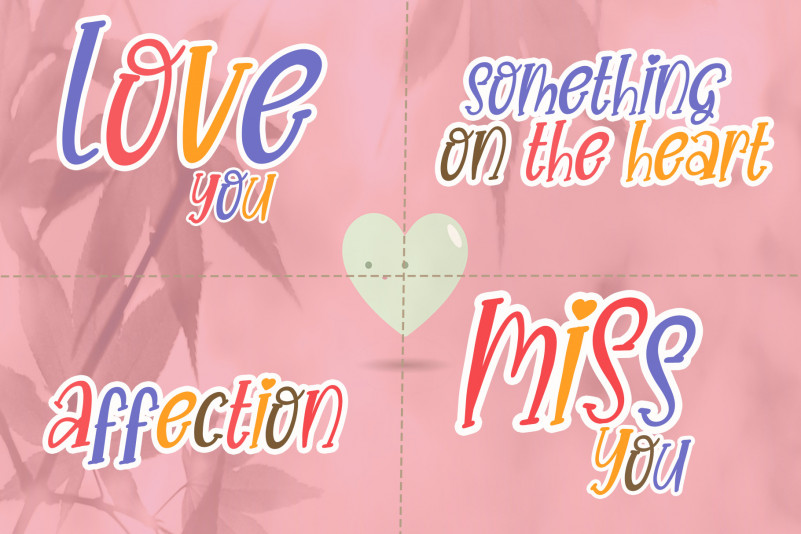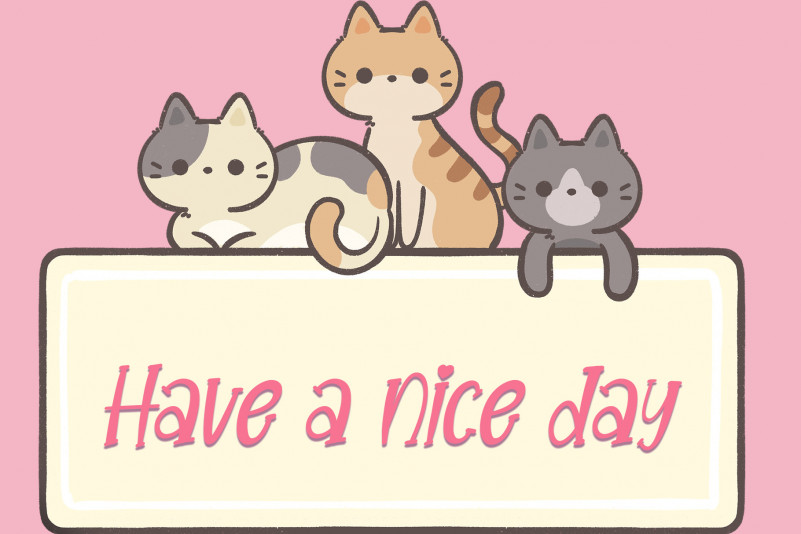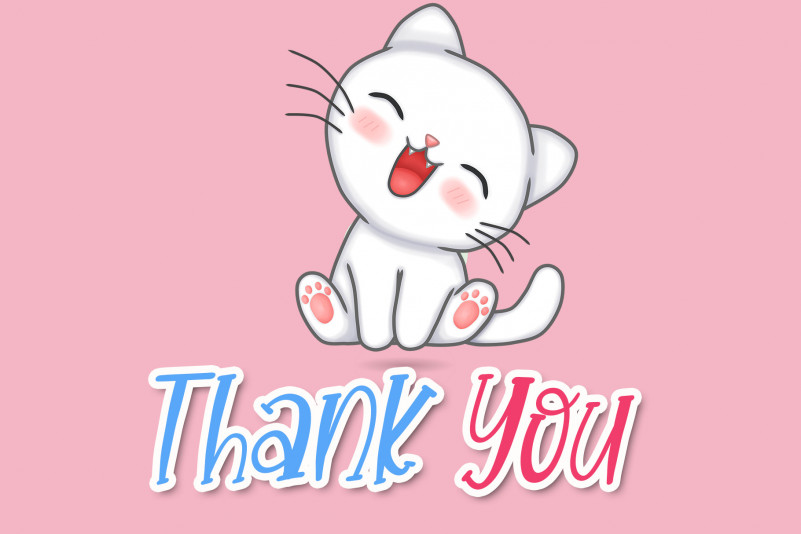
Creative Vintage Font
Creative Vintage Display Font
This is a cool, fun looking and neat serif font, featuring the perfect amount of trendiness. Whether you’re using it for crafting, digital designing, presentations or greeting cards making, it’s perfect!